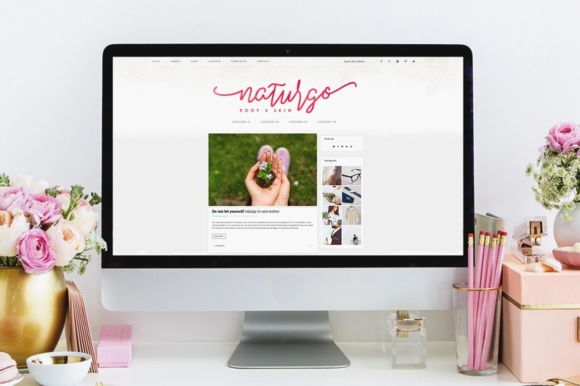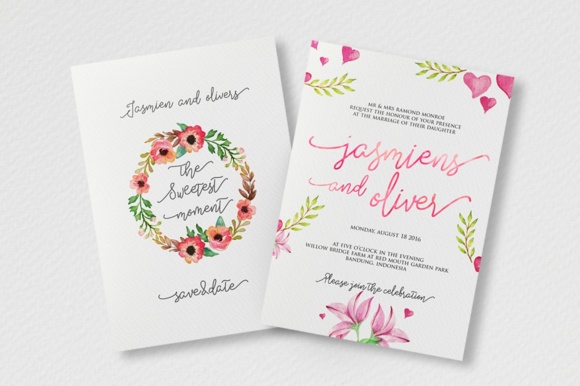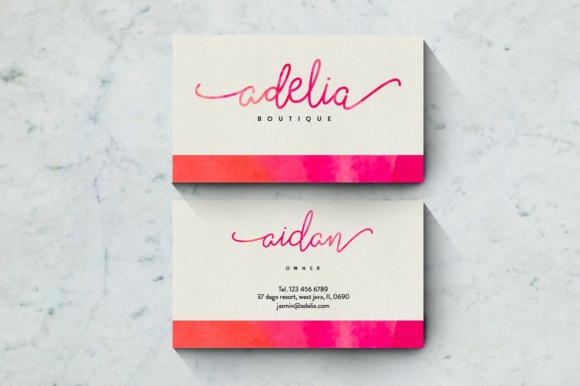
Introduction to Holihood Script Font
The Holihood is a beautiful monoline script.
It has a dancing baseline which will give your designs the feeling of freedom .
Holihood Script Font offers exceptional quality and versatility, making it a valuable addition to your design toolkit. Whether you’re creating for personal projects or commercial use, Holihood Script Font delivers professional results.